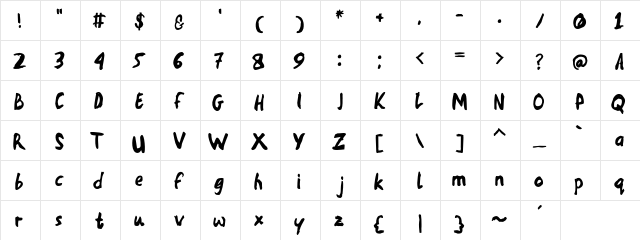
ON FRENDS Regular
Design Context for ON FRENDS Typeface
ON FRENDS is a composed and adaptable typeface that performs quietly and consistently across a wide range of design contexts.